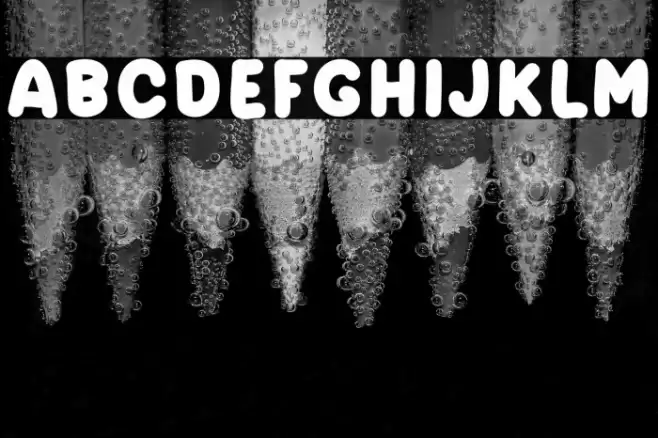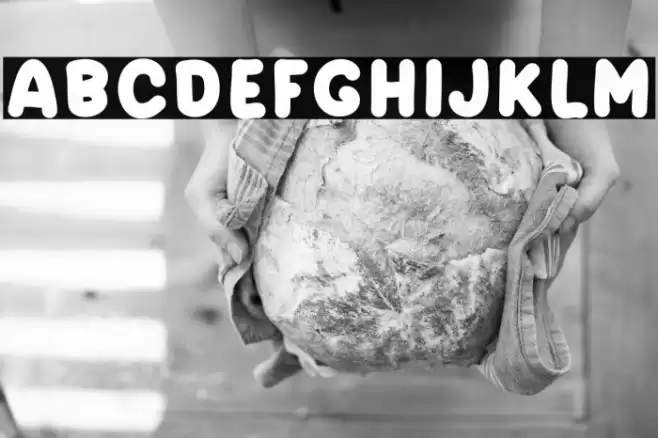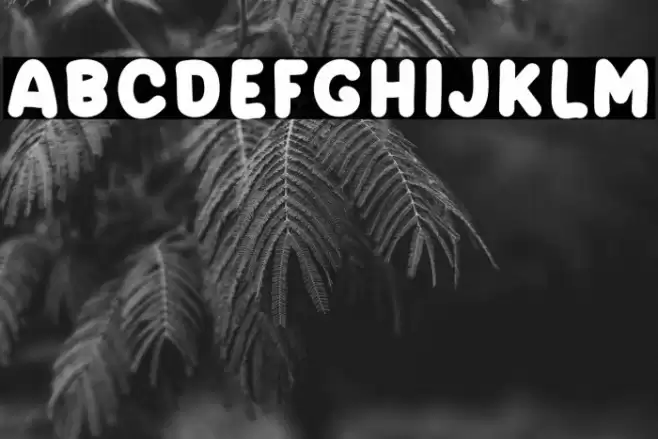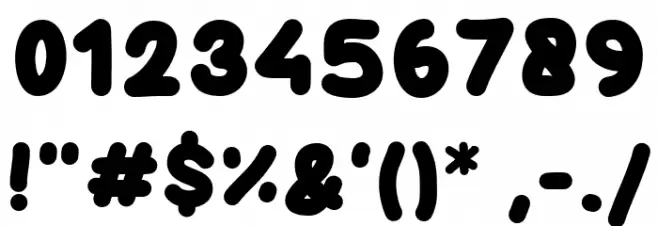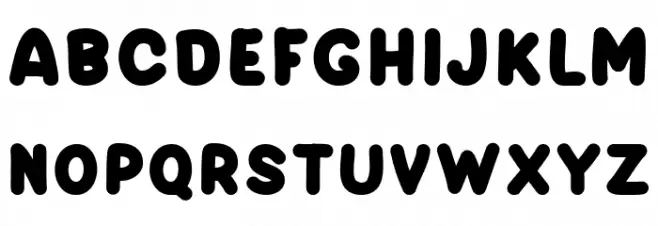
DAYSANS Font
DAYSANS Description
This font features bold, rounded characters that exude a playful and friendly vibe. The letters are uniformly thick, with a consistent stroke width that gives it a cohesive appearance. The rounded edges and lack of sharp angles contribute to its approachable and informal style. The numerals and special characters maintain the same rounded and bold characteristics, ensuring uniformity across all glyphs. This font is highly legible and stands out due to its substantial weight and smooth curves.
A bold, rounded font with a playful and friendly style from Uncategorized fonts.
- Font: DAYSANS
- Proposed Projects: Ideal for children's books, playful branding, casual invitations, and fun posters.
- Overall Style: Playful